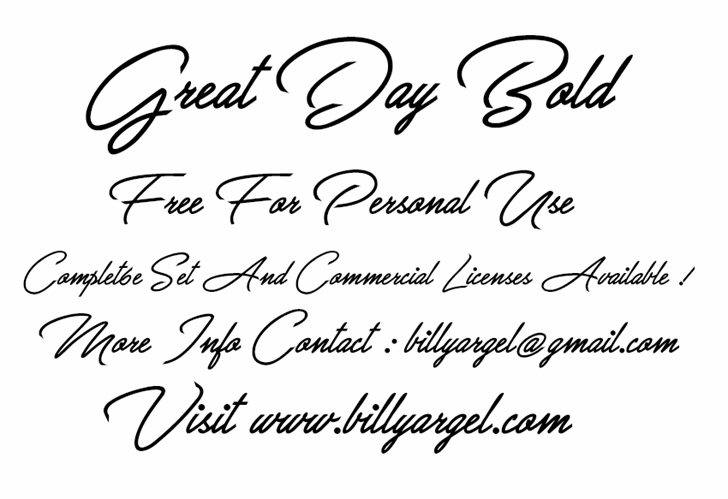
Free Great Day Bold Font
Today we're glad to feature this free great day bold font. Font Space has created this amazing and beautiful free font. This is absolutely fancy font so you can easily make world-class designs.